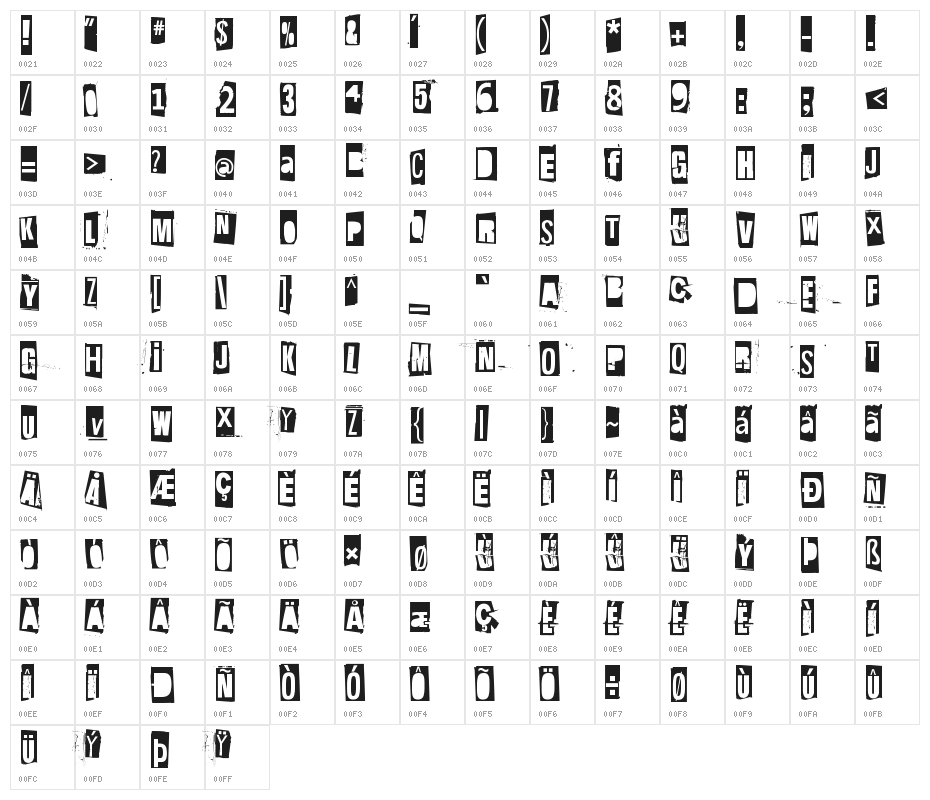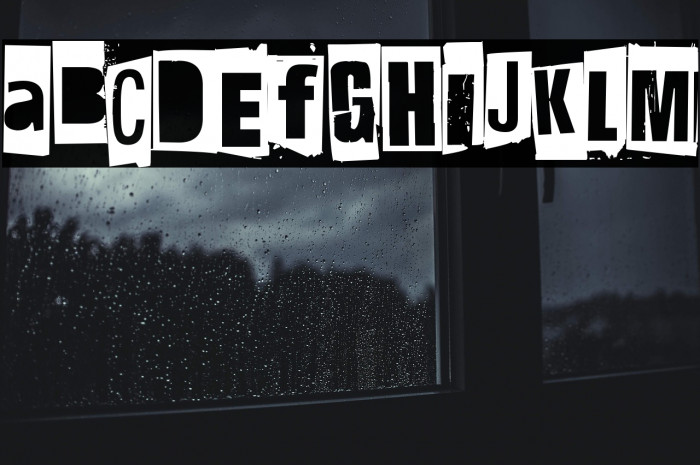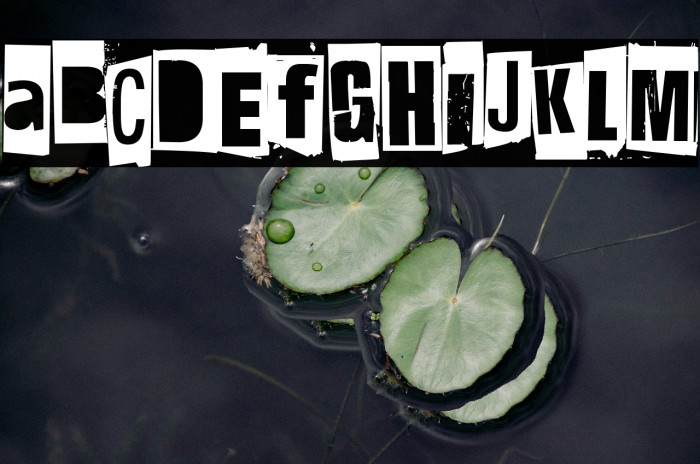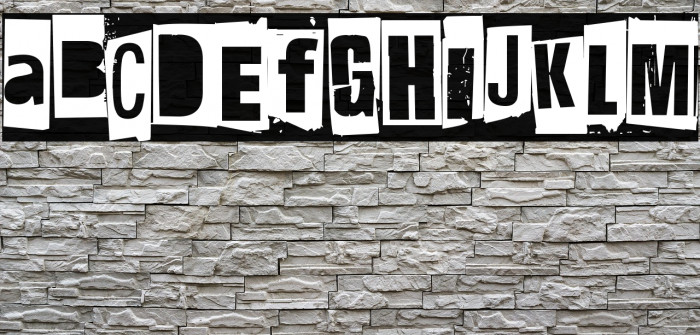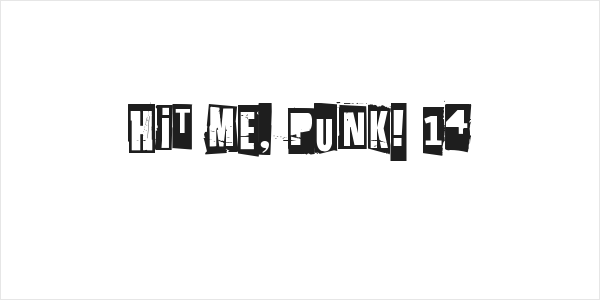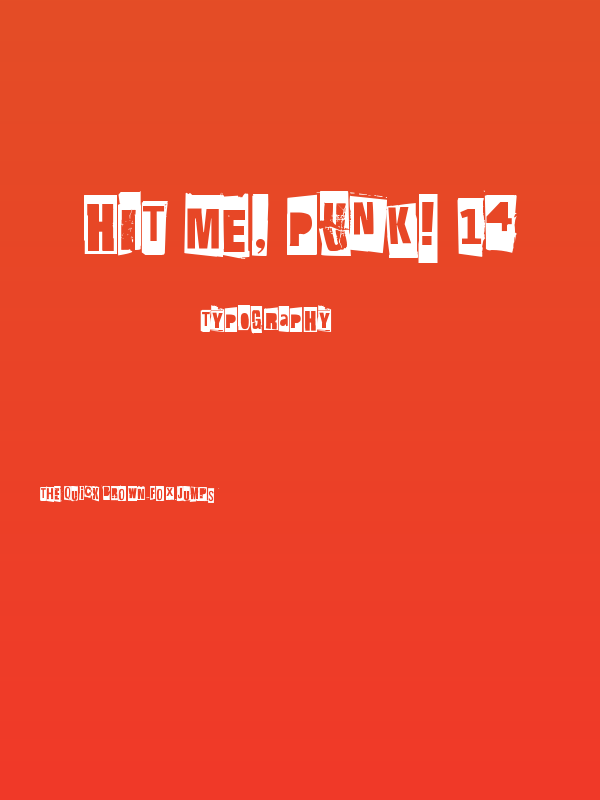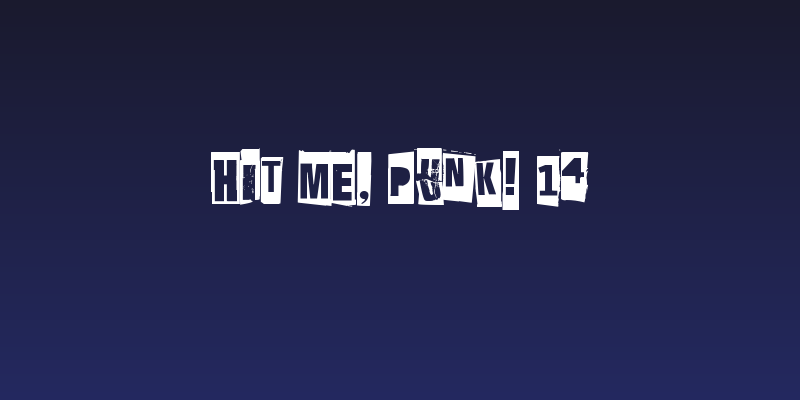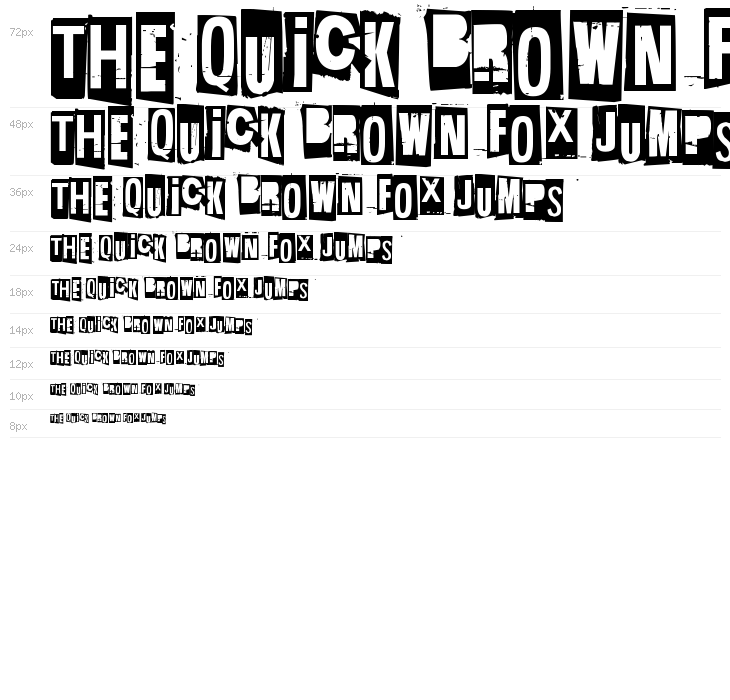
Hit me, punk! 14 Font
Hit me, punk! 14 Description
This font features a bold, grungy aesthetic reminiscent of cut-out letters from magazines or newspapers, often associated with punk rock and DIY culture. Each character appears to be individually styled with varying levels of distress and texture, giving it a raw and edgy feel. The letters are uppercase and lowercase, with numbers and a variety of special characters, all maintaining the same rugged, distressed look. The irregular shapes and sizes of the characters add to the chaotic and rebellious vibe, making it ideal for projects that require a strong, unconventional statement.
| Overall Style | Punk, Grunge, DIY |
| Proposed Projects | Album covers, posters, zines, streetwear branding, and any project needing a rebellious, edgy look. |